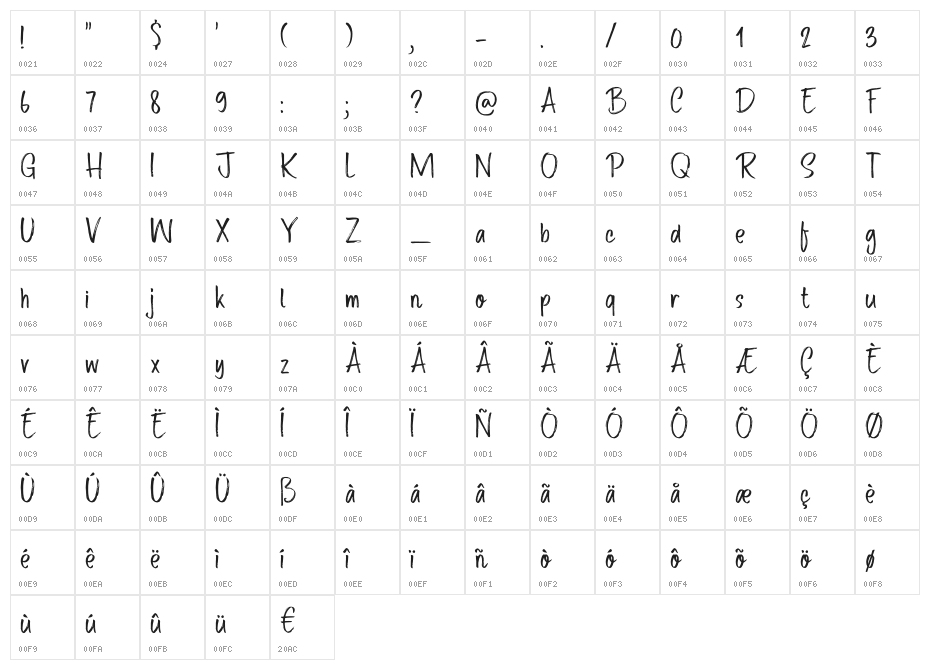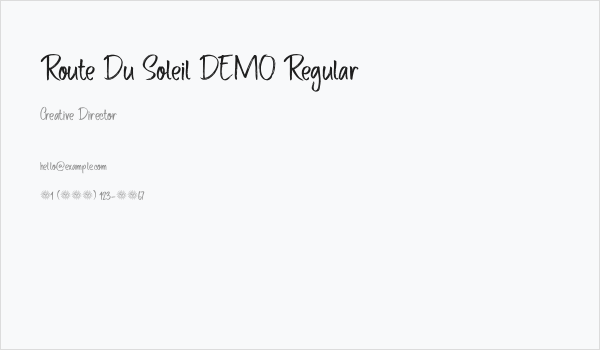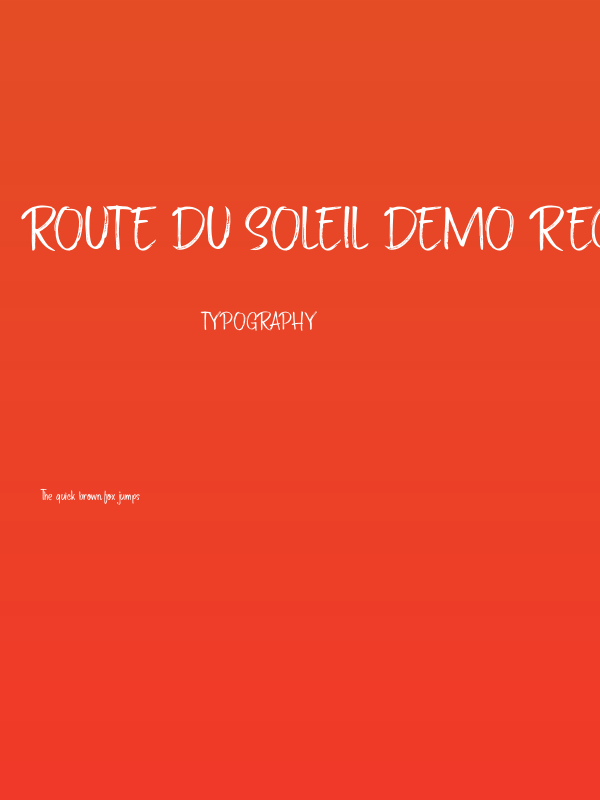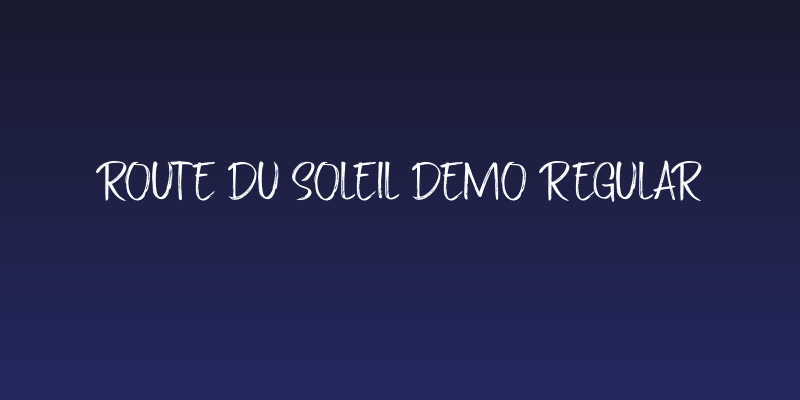
Route Du Soleil DEMO Regular Font
Route Du Soleil DEMO Regular Description
This font features a playful and artistic style, characterized by its brush-like strokes and hand-drawn appearance. The uppercase letters are bold and expressive, with varying stroke widths that give a dynamic and lively feel. The lowercase letters maintain this energetic style, with some letters extending below the baseline, adding to the casual and informal look. The numbers are consistent with the overall design, featuring the same brush-like texture. Special characters, including sun motifs, add a unique decorative element, enhancing the font's creative appeal. This font is ideal for projects that require a personal touch, such as invitations, posters, or branding materials that aim to convey a sense of fun and creativity.
| Proposed Projects | Ideal for creative projects like invitations, posters, and branding materials. |